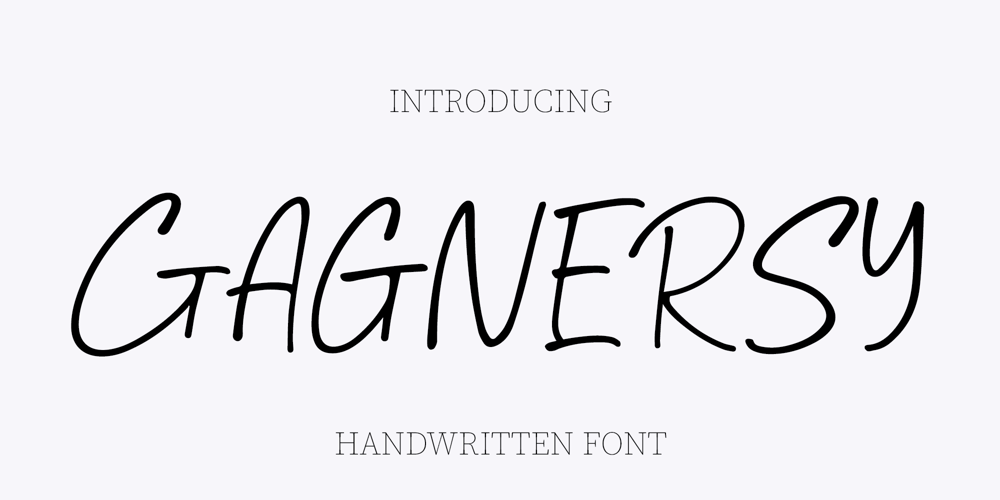
Gagnersy Font Family was designed by Randi Irvan and published by Rvandtype. Gagnersy contains 1 styles and family package options. Gagnersy is a handwritten font. It has an elegant and playful look that can be used for logos, branding, invitations, stationery, wedding designs, social media posts, and so much more.FEATURES:Numbering Punctuations Multilingual Support Thank You